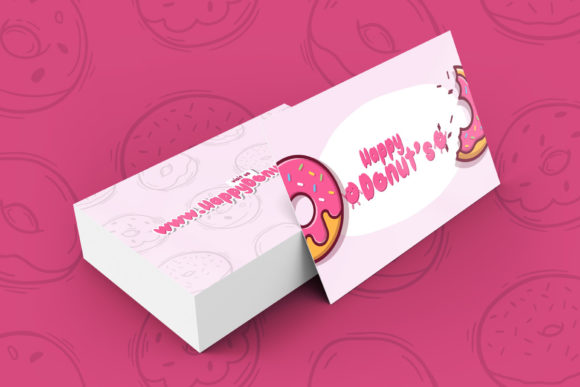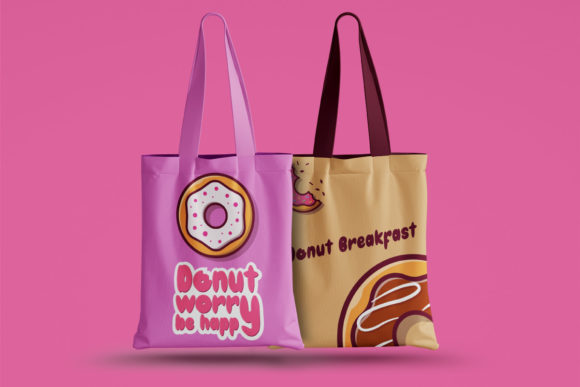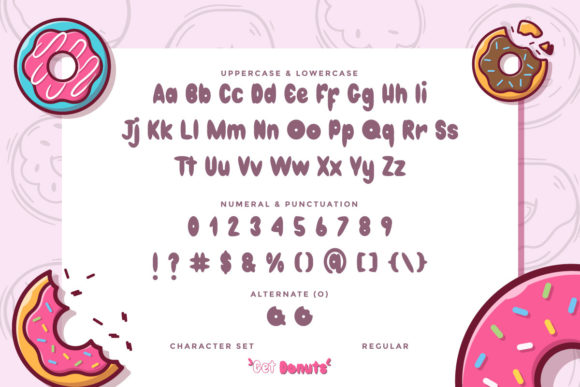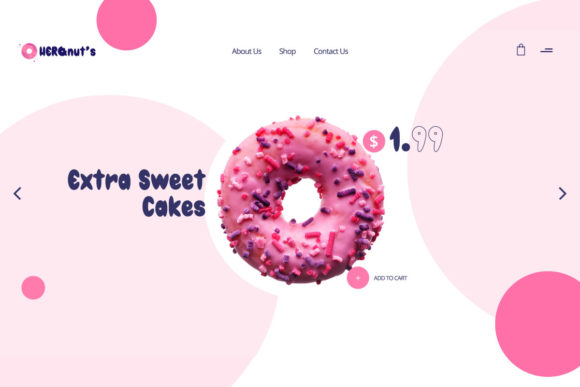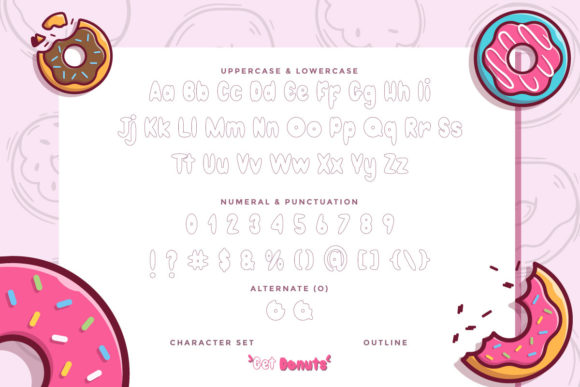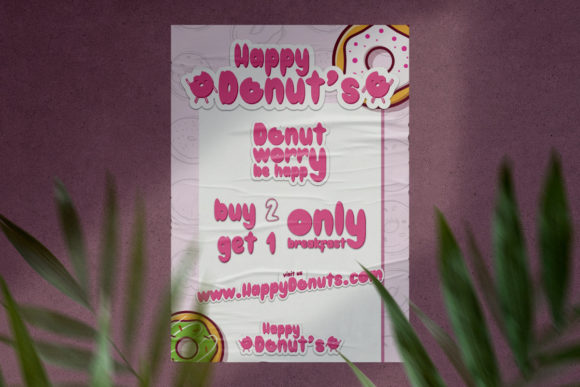
Get Donuts Font: A Playful Display Font for Your Creative Projects
Are you looking for a font that can add a touch of playfulness and fun to your designs? Look no further than Get Donuts Font! This delightful display font is inspired by the mouth-watering menus of fast-food restaurants, and it’s sure to make your creative projects stand out.
The Inspiration Behind Get Donuts Font
Get Donuts Font is a carefully crafted font that was designed to mimic the natural, free-flowing style of handwritten text. The font’s creator was inspired by the colorful and playful menus found in fast-food restaurants, and they set out to capture the essence of these fun and casual designs.
The result is a font that is both whimsical and elegant, with a unique character that is sure to capture the attention of your audience. Whether you’re designing a logo, a poster, or a social media graphic, Get Donuts Font is the perfect choice.
Key Features of Get Donuts Font
Get Donuts Font is a versatile font that offers a range of features that make it perfect for a wide variety of design projects. Some of the key features of this font include:
• Playful and fun design: Get Donuts Font has a playful and fun design that’s perfect for adding a touch of whimsy to your designs.
• Handwritten style: The font has a natural, free-flowing handwritten style that’s perfect for creating a sense of warmth and approachability.
• Display font: Get Donuts Font is a display font that’s designed to make a statement. It’s perfect for headlines, titles, and other large text elements.
• Easy to read: Despite its playful design, Get Donuts Font is easy to read, even at small sizes.
Using Get Donuts Font in Your Designs
Get Donuts Font is a versatile font that can be used in a wide variety of design projects. Here are a few ideas to get you started:
• Logos and branding: Get Donuts Font is perfect for creating fun and playful logos and branding elements.
• Posters and flyers: The font’s bold and playful design makes it perfect for posters and flyers.
• Social media graphics: Get Donuts Font is a great choice for social media graphics, including Facebook posts, Twitter headers, and Instagram stories.
• Packaging design: The font’s playful design makes it perfect for packaging design, including labels, tags, and other packaging elements.
Why Choose Get Donuts Font?
There are many fonts to choose from, but Get Donuts Font stands out from the crowd. Here are a few reasons why:
• Unique design: Get Donuts Font has a unique design that’s sure to make your designs stand out.
• High-quality craftsmanship: The font is carefully crafted to ensure that it’s both beautiful and functional.
Get Donuts Font is a playful display font that’s perfect for adding a touch of fun and whimsy to your designs. With its unique design, high-quality craftsmanship, and ease of use, it’s a great choice for designers and crafters who want to create stunning creative projects. Whether you’re designing a logo, a poster, or a social media graphic, Get Donuts Font is the perfect choice. So why wait? Get Donuts Font today and start creating!